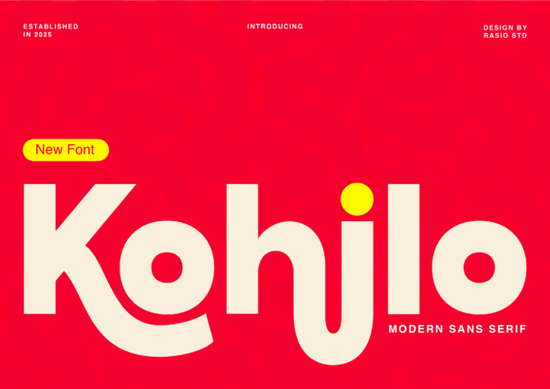
If you're looking for a sans serif font that brings both boldness and personality without sacrificing readability, Kohilo Font might be exactly what your next project needs. Designed with thick, confident strokes and fluid, exaggerated curves especially in letters like the “h” and “j” Kohilo walks the line between professional clarity and expressive flair. It’s not just another clean sans; it’s got attitude, making it ideal for brands or creators who want to stand out while still feeling modern and approachable.
When should you use Kohilo?
Kohilo shines in contexts where visual impact matters but legibility can’t be compromised. Think:
- Creative tech branding – startups or apps that want to feel innovative yet friendly
- Toy and game packaging – where fun and energy are part of the product identity
- Social media headers – especially for campaigns that need to grab attention fast
- Modern app interfaces – for UI elements that benefit from a distinctive but readable typeface
Because of its balanced structure, Kohilo works well at larger sizes but still holds up in mid-sized text blocks when used thoughtfully. It’s not meant for dense paragraphs, but for headlines, logos, buttons, or short taglines it delivers presence without overwhelming.
How does Kohilo compare to other playful sans serifs?
Fonts like Summer Marker lean into hand-drawn casualness, while Perfect Lemonade offers bubbly, rounded charm. Kohilo is different: it’s geometrically grounded but infused with liquid-like movement. The result is a font that feels both structured and spontaneous a rare combo.
If you’ve considered Cultivo, you’ll notice it shares Kohilo’s contemporary edge, but Cultivo leans more minimalist and neutral. Kohilo, by contrast, isn’t shy about drawing the eye. Its exaggerated terminals and robust weight make it a natural focal point, not just supporting typography.
Who is this font really for?
Independent designers creating brand identities for energetic startups will find Kohilo useful for logo work or key messaging. Print-on-demand sellers can use it on mugs, posters, or apparel where bold typography drives engagement. Small businesses launching a new product especially in gaming, kids’ tech, or lifestyle apps can leverage its friendly-bold vibe to signal innovation without coldness.
Even hobbyists crafting social content or digital invitations will appreciate how easily Kohilo adds polish and punch. You don’t need advanced design skills to make it work; pair it with a simple neutral (like a light sans or even a clean serif) and let Kohilo carry the visual weight.
Tips for pairing and using Kohilo effectively
- Avoid overuse. One or two words in Kohilo often say enough. It’s a display font at heart, even if it’s technically a sans serif.
- Pair with minimal fonts. Try it alongside ultra-thin or geometric sans serifs for contrast. Avoid other decorative or high-energy fonts they’ll compete.
- Watch spacing. Because of its thick strokes and curved terminals, tight letter-spacing can cause visual crowding. Give it room to breathe, especially in uppercase.
- Use color wisely. Kohilo pops in solid blacks or vibrant accent colors, but avoid low-contrast combinations (like gray on white) unless you’re going for subtlety which isn’t its strength.
Remember: the goal isn’t just to be loud, but to be memorable in a way that aligns with your message. Kohilo helps you do that when your brand voice is upbeat, confident, and human-centered.
Ready to try it?
If your project calls for a font that’s both modern and full of character without tipping into gimmick territory Kohilo is worth exploring. It’s available through Creative Fabrica, where you can preview it in context and see how it performs across different mockups.